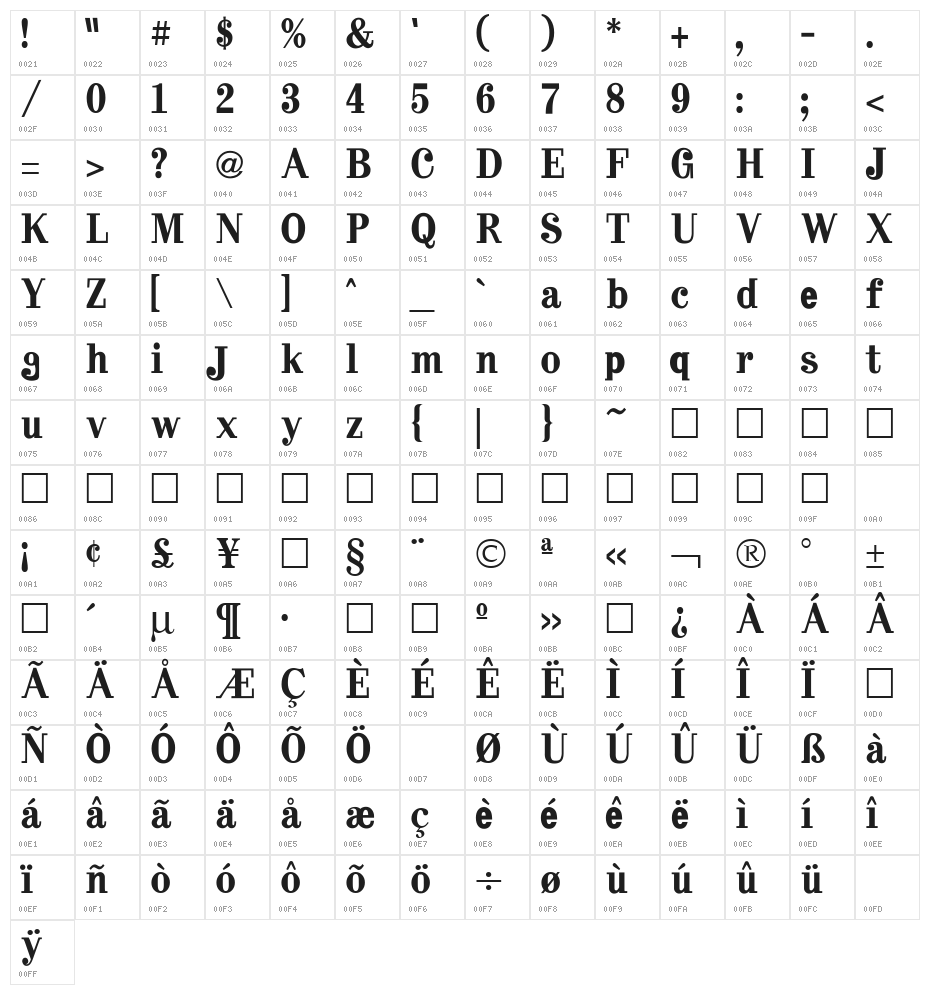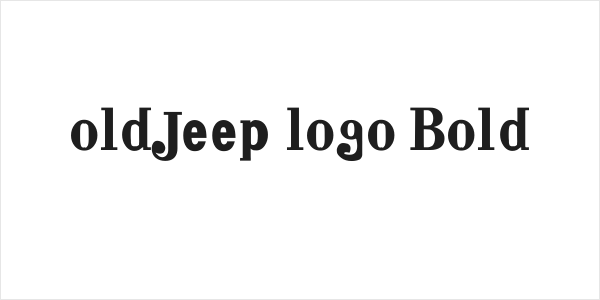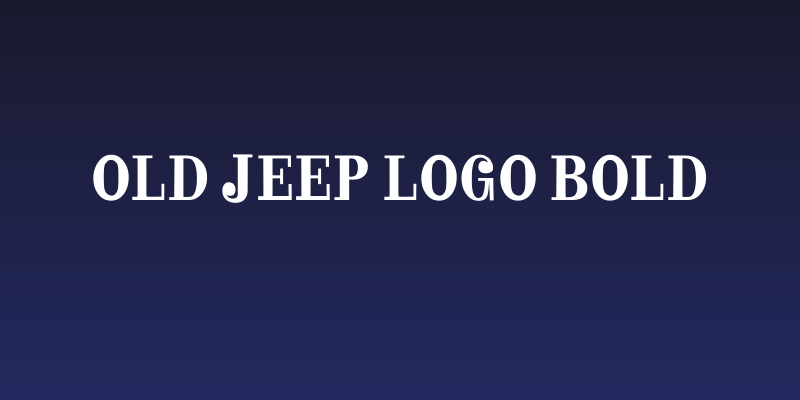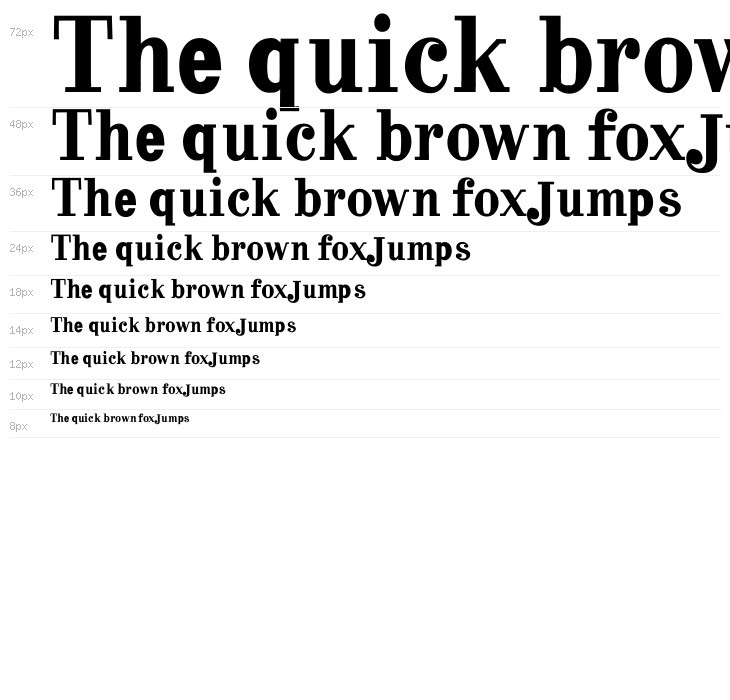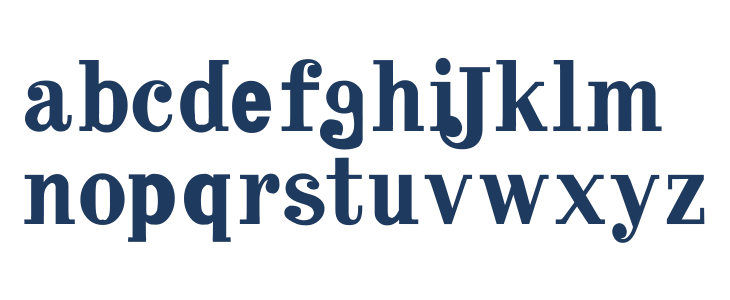
old jeep logo Bold Font
old jeep logo Bold Description
This font features bold, strong serifs with a classic and authoritative appearance. The uppercase letters are tall and commanding, while the lowercase letters maintain a consistent weight, providing a harmonious balance. The numerals are robust and clear, making them easily legible. The special characters are well-defined, adding to the font's versatility. The overall design is reminiscent of vintage typefaces, with a modern touch that makes it suitable for a variety of applications. Its boldness and clarity make it ideal for impactful headlines and logos.